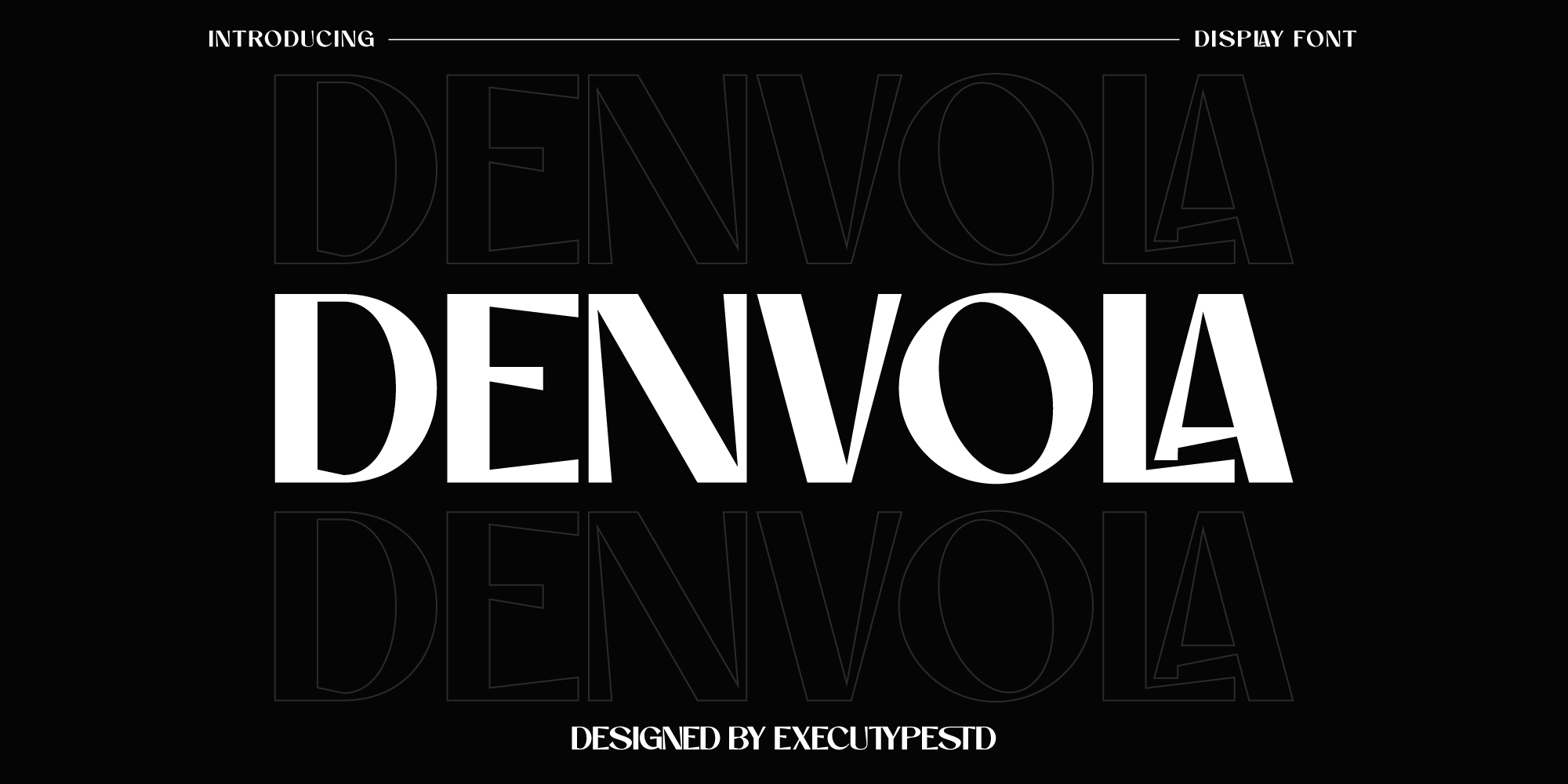
The Denvola Display Font is an excellent choice for designs that demand a bold, modern, and highly distinctive visual impact. Imagine it as the striking headline on a contemporary magazine cover, defining the brand identity for an innovative tech product, or bringing a cutting-edge aesthetic to event promotions. It's also perfectly suited for impactful posters, eye-catching advertisements, unique editorial layouts, and any project where you want to convey a sense of strength, originality, and forward-thinking design. Its often sharp angles, unique ligatures, and assertive presence make it ideal for conveying confidence and a memorable statement.
What makes the Denvola Display Font so exciting is its ability to instantly capture attention with its unique and often unconventional forms. It frequently features highly stylized letterforms that are designed to stand out, making it a true showstopper. This font has a powerful and artistic personality that can instantly elevate your design, making it feel both sophisticated and daring. It’s designed to be a focal point, ensuring your message is not just seen, but remembered for its distinctive and modern flair.
The Denvola Display Font family typically focuses on a few impactful weights, as its primary purpose is high-impact display use rather than extensive body text. It often includes a rich set of stylistic alternates, unique ligatures, and sometimes even contextual variations that allow for highly customized and visually dynamic typographical compositions. These features empower designers to create truly unique and artistic headlines, ensuring the Denvola Display Font Free Download can adapt to a wide array of projects while maintaining its signature, bold charm.